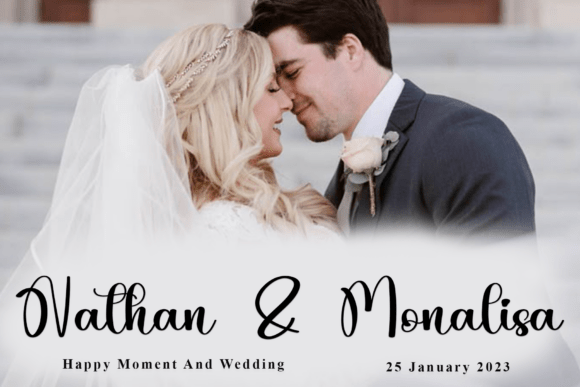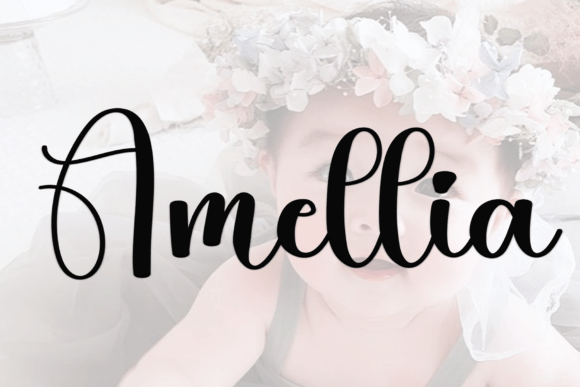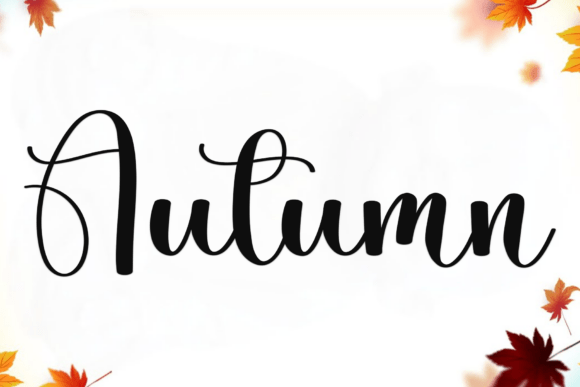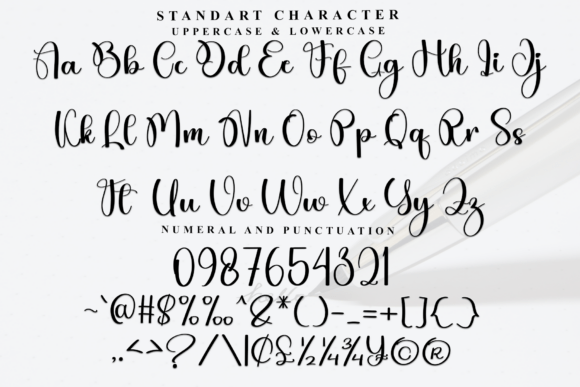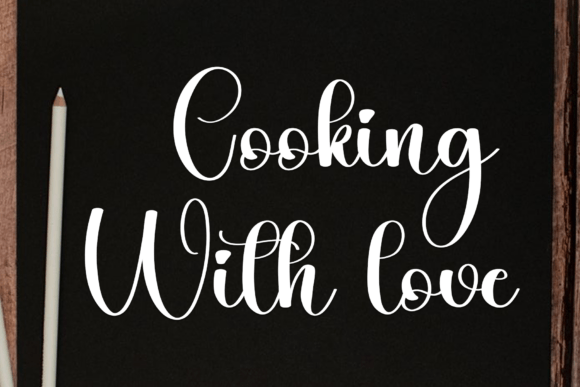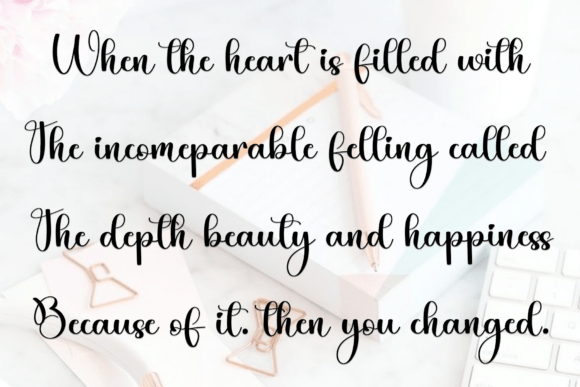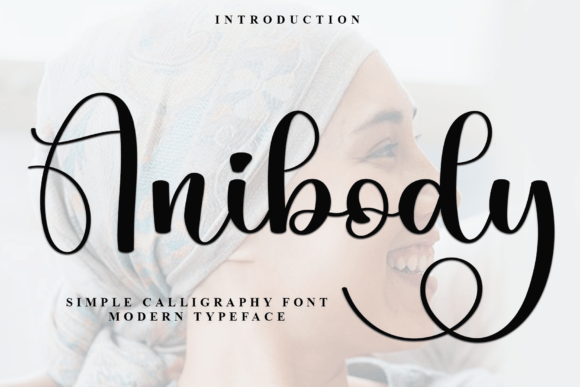
Unlocking the Power of Creativity with Anibody Font
As a designer, there’s nothing quite like that moment of inspiration when a new project comes to life in your mind. The colors, the shapes, the textures – it’s all so vivid and exciting. And when you finally sit down to bring it all to fruition, the right font can make all the difference. That’s where the Anibody Font comes in – a beautiful and eye-catching typeface designed to add a soft, unique touch to your designs.
With its distinctive strokes and versatility, the Anibody Font is the perfect choice for a wide range of creative projects. Whether you’re working on a design project, crafting a special piece, or simply looking to enhance your artistic expression, this natural font style is sure to impress. And with its compatibility across various applications, you can trust that your designs will look their best, no matter what platform you’re on.
Anibody Font Key Features
- Font Size: The font family includes 6 weights (Thin, Light, Regular, Medium, Bold, Black) and 3 styles (Italic, Oblique, Condensed) to cater to various design needs.
- Unique Characteristics: The font features a unique blend of hand-drawn and digital elements, resulting in a distinctive and modern aesthetic.
- Language Support: Anibody Font supports a wide range of languages, including Latin, Cyrillic, and Greek scripts, making it suitable for global design projects.
Anibody Font Review
Overall, I’m quite impressed with the Anibody Font, but it’s not without its flaws.
- Unique Design: The Anibody Font’s quirky, hand-drawn aesthetic sets it apart from more traditional font styles.
- High-Quality Glyphs: The font’s glyphs are well-designed and highly detailed, making it perfect for use in graphic design and digital art.
- Excellent Legibility: Despite its unique style, the font is surprisingly easy to read, making it suitable for body text and headings.
- Limited Character Set: The Anibody Font’s character set is somewhat limited, which may make it difficult to use for complex text or international characters.
- Not Suitable for Small Text: While the font is legible at larger sizes, it can become quite messy and difficult to read at smaller text sizes.
- May Require Customization: Depending on the project, you may need to customize the font’s style or spacing to achieve the desired effect.
The Anibody Font is a unique and high-quality addition to any designer’s toolkit. While it may have some limitations, its strengths make it well worth considering for the right project. With a little customization and planning, the Anibody Font can help take your designs to the next level.